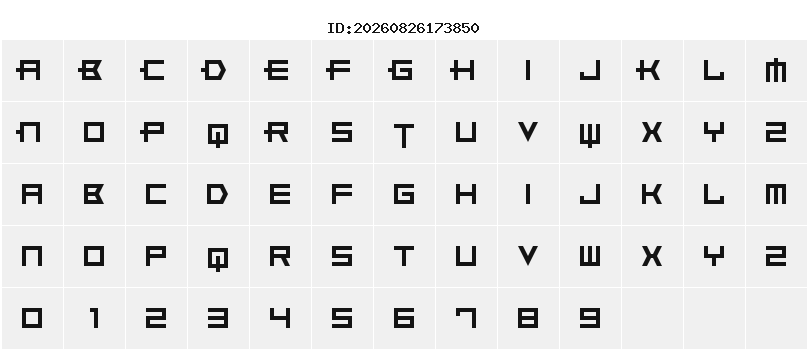
Xero's Karma Preview
• Font Name: Xero's Karma
• Full Font Name: Xero's Karma Regular
• Designer: Andrew McCluskey
• Description: “Xero's Karma” was built with FontStruct
About Xero's Karma.ttf
Xero's Karma.ttf is a modern, elegant sans-serif font designed for ultimate readability and visual harmony. Perfect for branding, headlines, web design, and print materials.